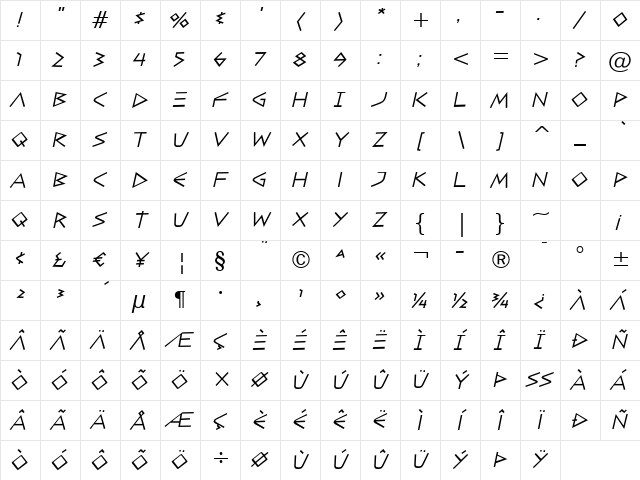
CaesarBrute BTN Oblique Free Font
CaesarBrute BTN Oblique
Design Context for CaesarBrute BTN
CaesarBrute BTN is a composed and adaptable typeface that performs quietly and consistently across a wide range of design contexts. The slanted form adds forward momentum and visual energy.
Pro Tip: Use CaesarBrute BTN for emphasis, pull quotes, and subheadings where its slanted energy can add rhythm to the layout.